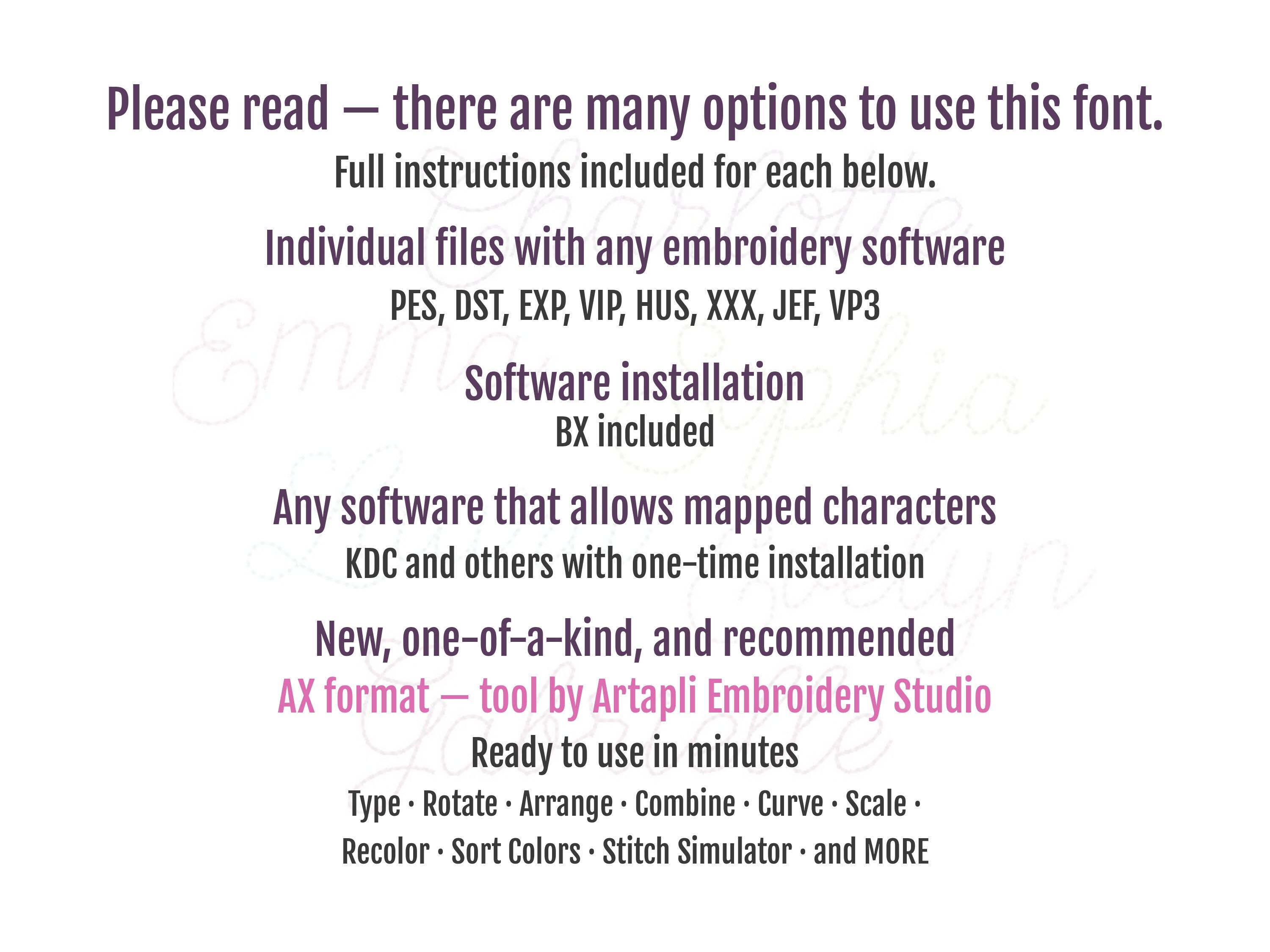
Quick light bean stitch Thin Line FONT machine embroidery designs assorted mini sizes, handwritten alphabet letters, kids name, BX included
Whole alphabet: uppercase and lowercase letters, numbers and ampersand &
This stitched out very nicely
Very thin danty font, stitched well
Beautifully stitched shirt for my girls!
I thought I would be able to do large print but the design was only small font.